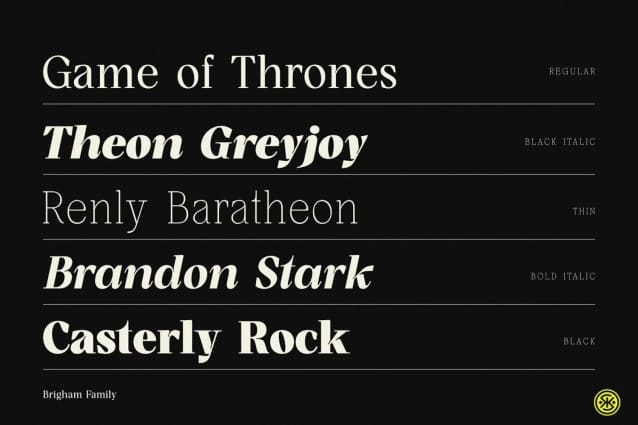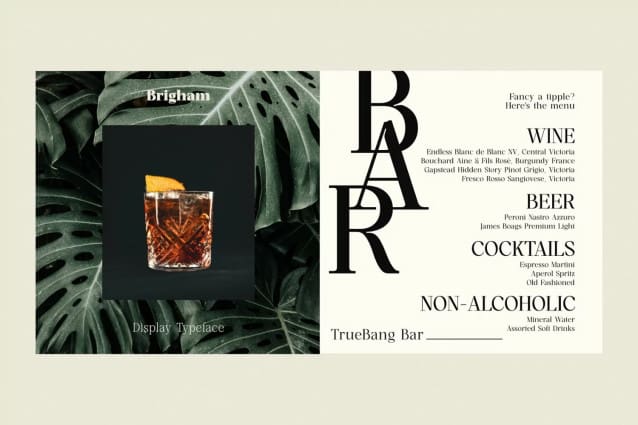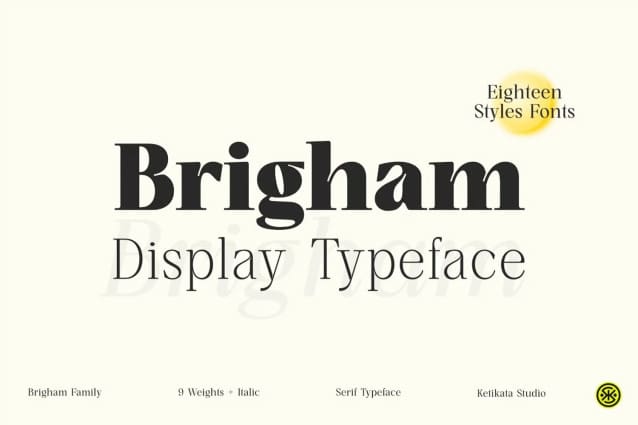
Brigham Serif Font
Brigham Serif Font a captivating display serif typeface that harkens back to the visual allure of the 1980s while drawing inspiration from the classic elegance of typefaces like Garamond and Times New Roman. This font pays homage to the era of cinematic visuals, making it a perfect choice for projects that demand a touch of nostalgic sophistication.
Inspired by the fonts that graced advertisements and cinematic screens of the 1980s, Brigham Serif carries the essence of both eras. It’s nuanced design nods to the stylish professionalism of that time, capturing the visual charm of classic typefaces while infusing it with a contemporary flair.
Brigham boasts a character that radiates professional elegance. Its meticulously crafted serifs and letterforms create a harmonious visual dance that captures attention and ignites intrigue. The uppercase ligatures, carefully designed to inspire creativity, add a self touch to your typography, allowing you to make a bold statement with each use.
Offering 18 styles ranging from Thin to Black, including plain and italic variations, Brigham Serif  provides a versatile palette that caters to a multitude of design needs. With language support for 89 languages, Brigham ensures your message can reach a global audience while maintaining its distinctive allure.
Brigham’s wide range of styles and meticulous design makes it a versatile choice for branding, headlines, film titles, YouTube reels, ads videos, and posters. Whether you’re evoking nostalgia, showcasing modern professionalism, or creating cinematic narratives, Brigham stands ready to elevate your visual storytelling.